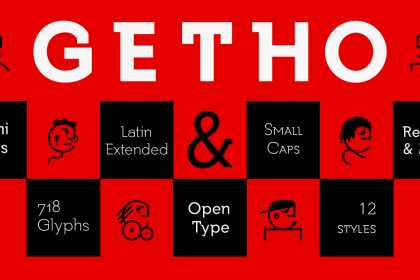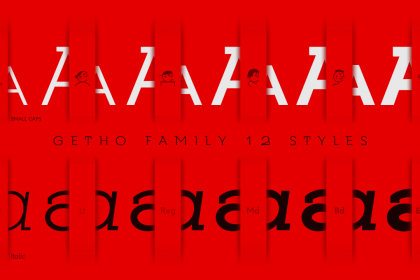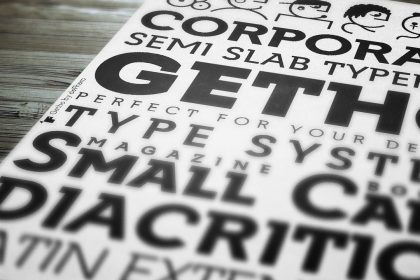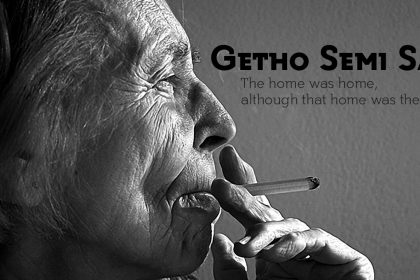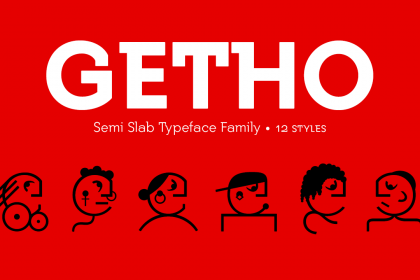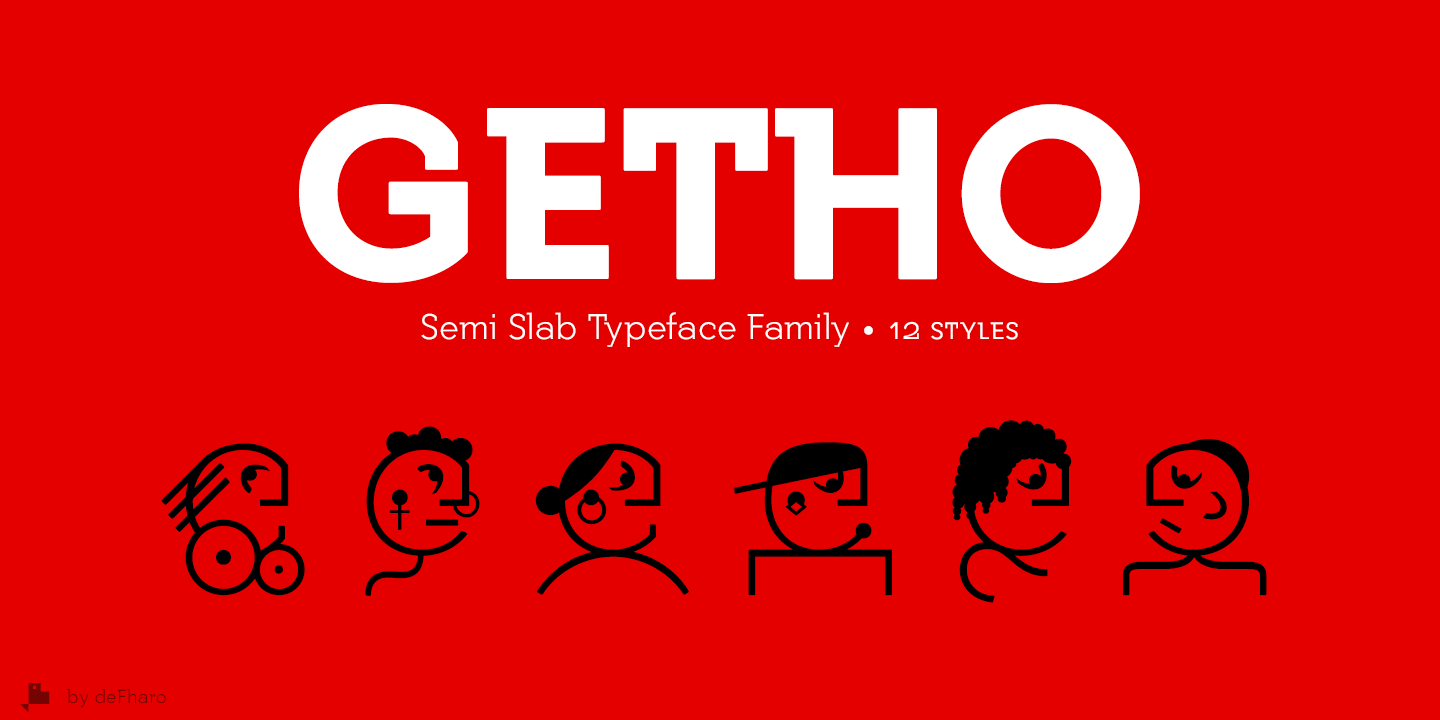
Getho Semi Sans Font
Getho is a Semi Sans family of geometric construction with 6 pesos plus the italic versions all include small letters, the symbol of Bitcoin and other monetary symbols.
It is an exclusive typography with neo-grotesque modulations and maximum readability in any size. The typeface has alternative letters and numbers, small caps and advanced OpenType functions. The complete Pack includes versions of the Variable Fonts type.
The drawn of the vectors is meticulous to obtain smooth curves of elegant aspect to which also contributes the subtle rounding of the corners, the thicker versions have of traps of ink in the knots of the unions to be able to use them in small sizes. The Metric and the Kerning of all the versions I have reviewed individually to obtain a fluent reading in any type of text and size.